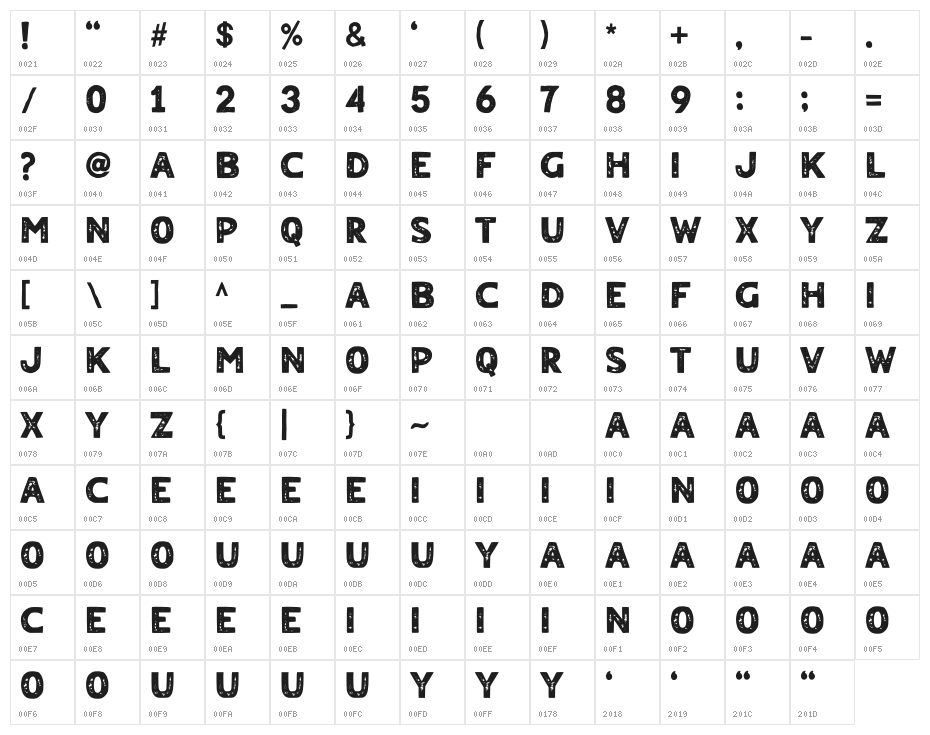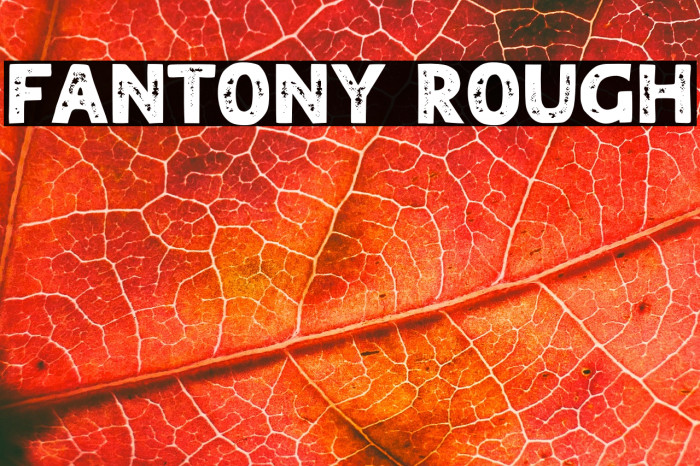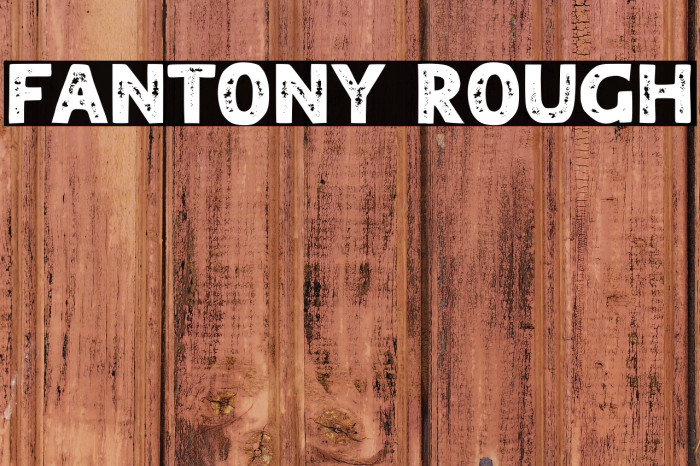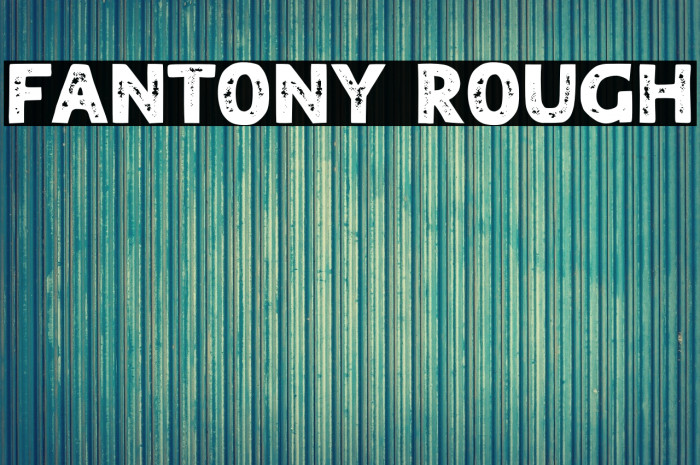
FANTONY ROUGH Font
FANTONY ROUGH Description
This font features a bold and rugged style with a distressed texture that gives it a vintage and worn appearance. The characters are uppercase with a consistent thickness, creating a strong and impactful look. The rough edges and irregularities add a handcrafted feel, making it ideal for projects that require a rustic or retro aesthetic. The numbers and special characters maintain the same distressed quality, ensuring a cohesive design across all elements. This font's bold presence makes it suitable for attention-grabbing headlines and display purposes.
| Overall Style | Vintage |
| Proposed Projects | Ideal for vintage posters, rustic branding, retro-themed events, and attention-grabbing headlines. |